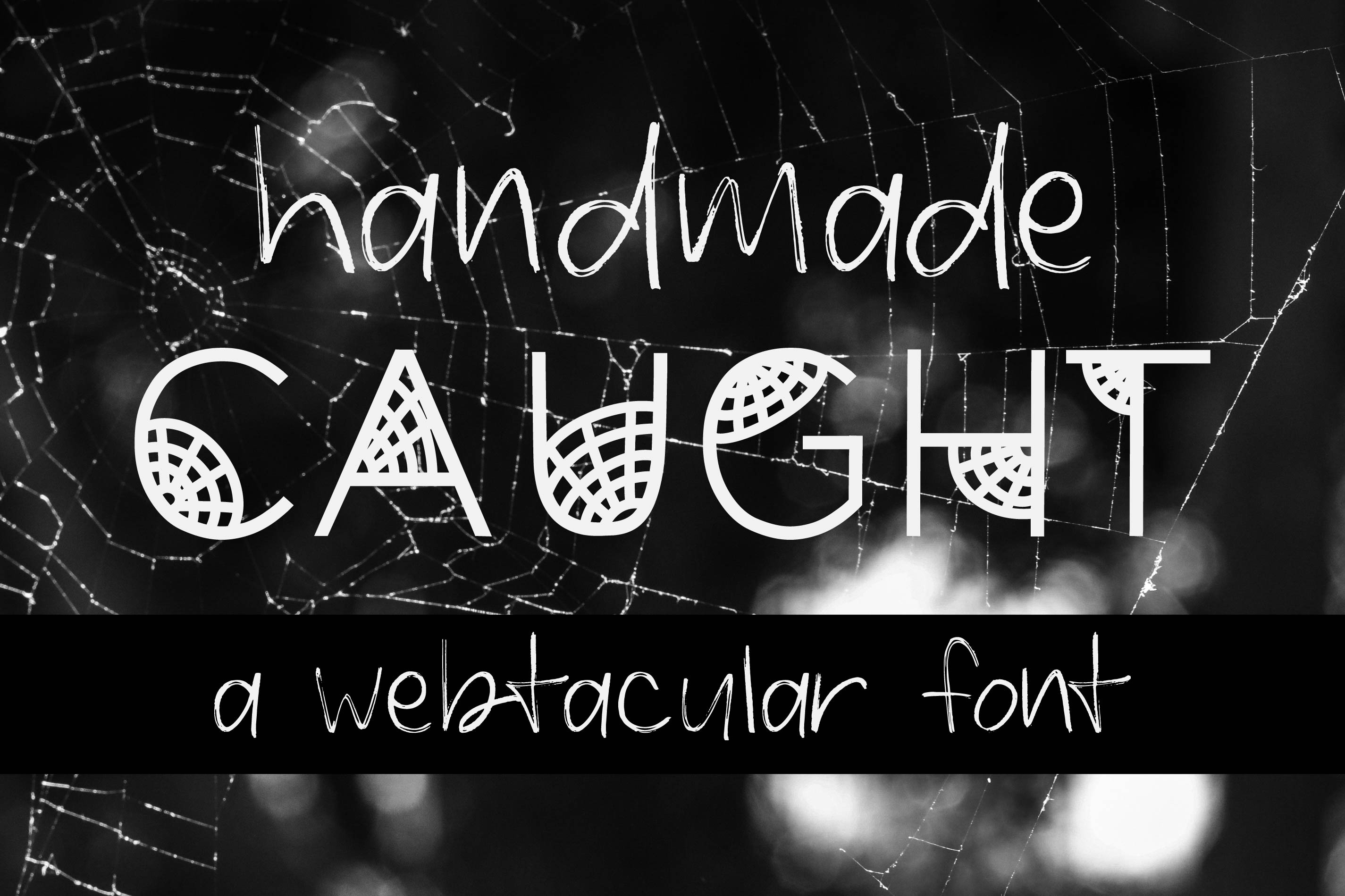
Caught Font Halloween Cobweb Display
Caught is a handwritten sans serif font. It is perfect for spooky designs and Halloween decor. This sans serif font features A-Z, a-z, 0-9, and basic extra characters.